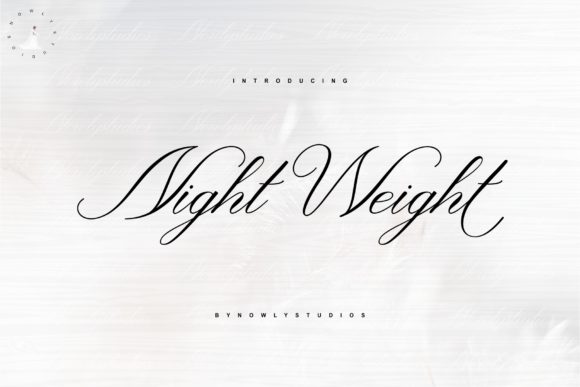
Journey into the realm of Night Weight Script, a captivating script font that weaves elegance and authenticity into your digital creations. Crafted with precision by the artistic hands at nowlystudios, this font possesses an inherent charm that will transform your designs into visually stunning masterpieces.
Immerse yourself in the beauty of Night Weight Script, a font that exudes sophistication and grace. Its meticulously crafted characters dance across the screen, resembling the delicate strokes of a skilled calligrapher. With its timeless appeal, this font adds a touch of elegance to any project, whether it's a wedding invitation, a personal logo, or a social media post.
Unlock the power of self-expression with Night Weight Script. Its versatile nature allows you to convey a wide range of emotions and messages through your designs. Whether you're aiming for a classic, romantic look or a more modern, edgy vibe, this font effortlessly adapts to your creative vision. Experience the joy of creating designs that truly reflect your unique style and personality.
Unleash your creativity and let your imagination soar with Night Weight Script. Its boundless possibilities will inspire you to explore new design horizons. Craft enchanting invitations that transport your guests to a world of elegance, design captivating logos that leave a lasting impression, and create social media posts that captivate your audience. The only limit is your imagination.
Seize the opportunity to elevate your designs with Night Weight Script. Its exceptional quality and versatility make it a must-have addition to your font collection. Discover the endless possibilities that await you and embark on a creative journey that will leave you breathless.